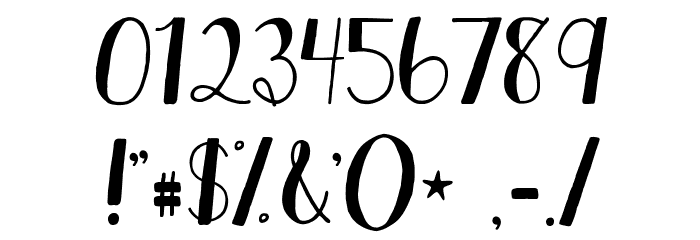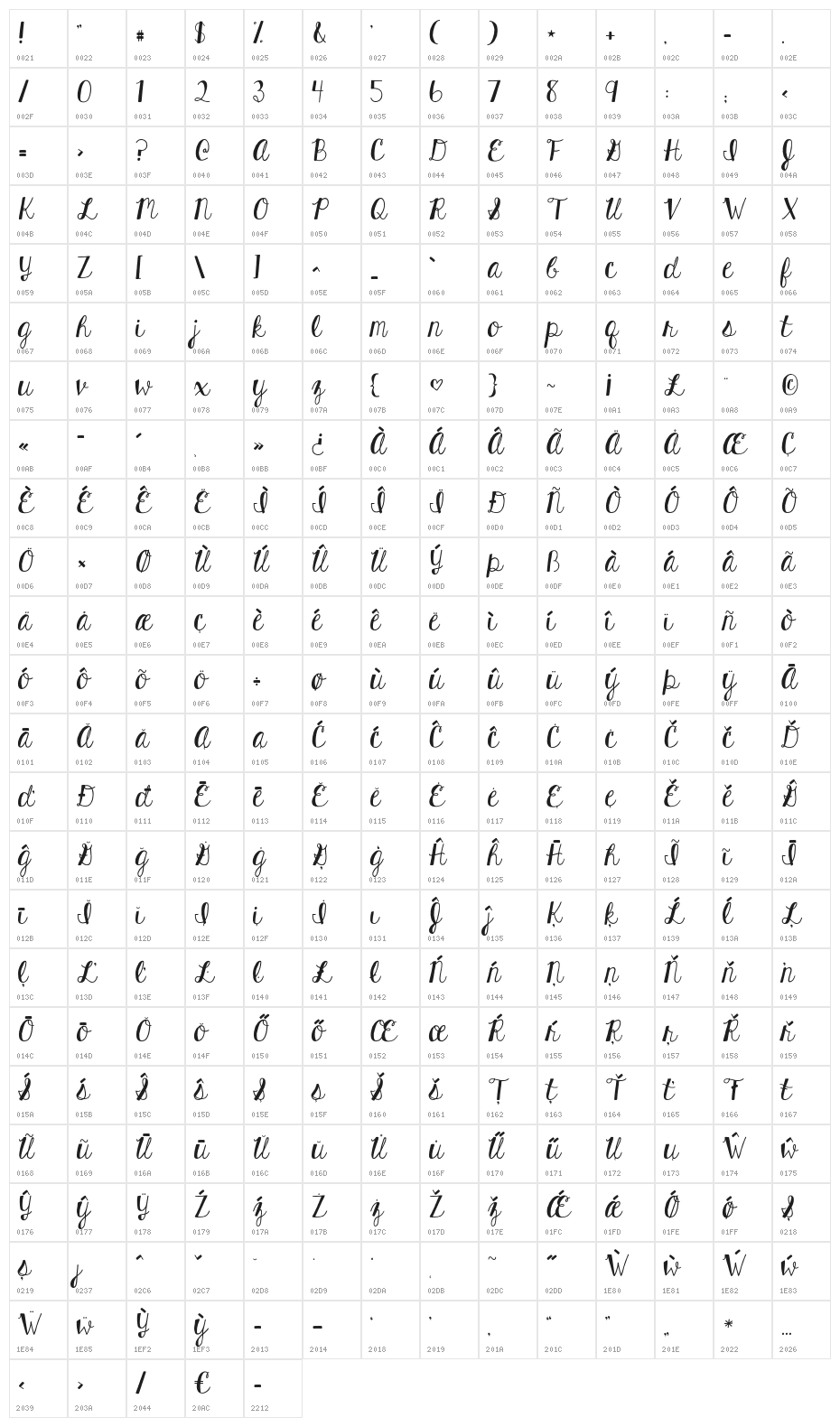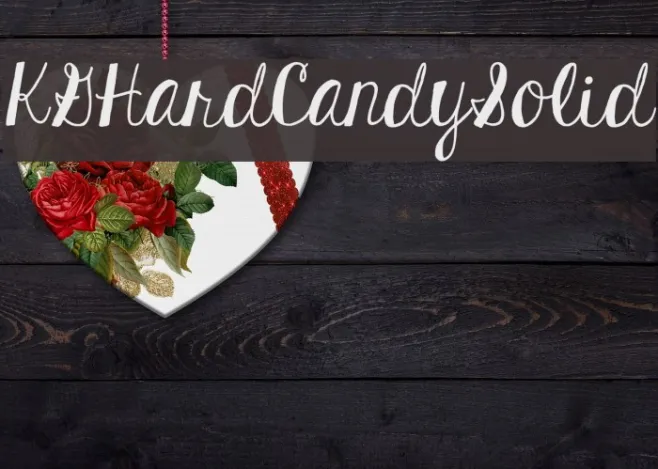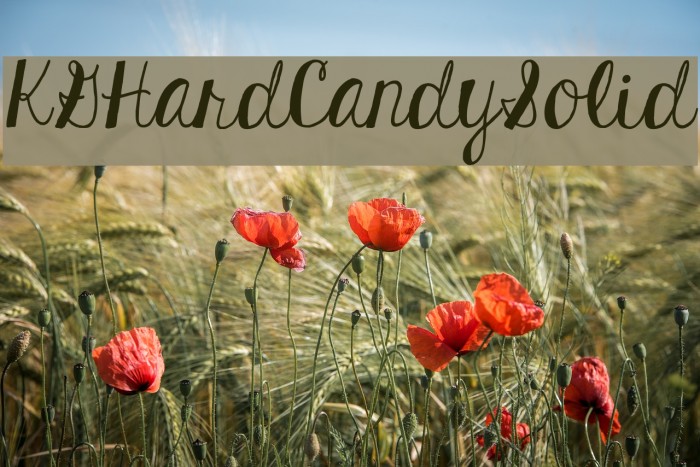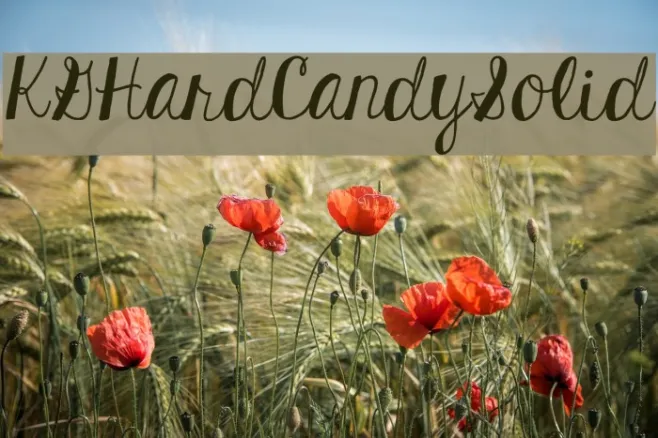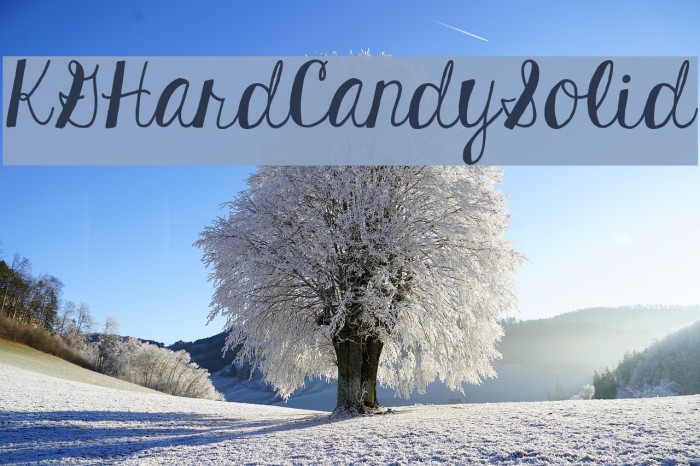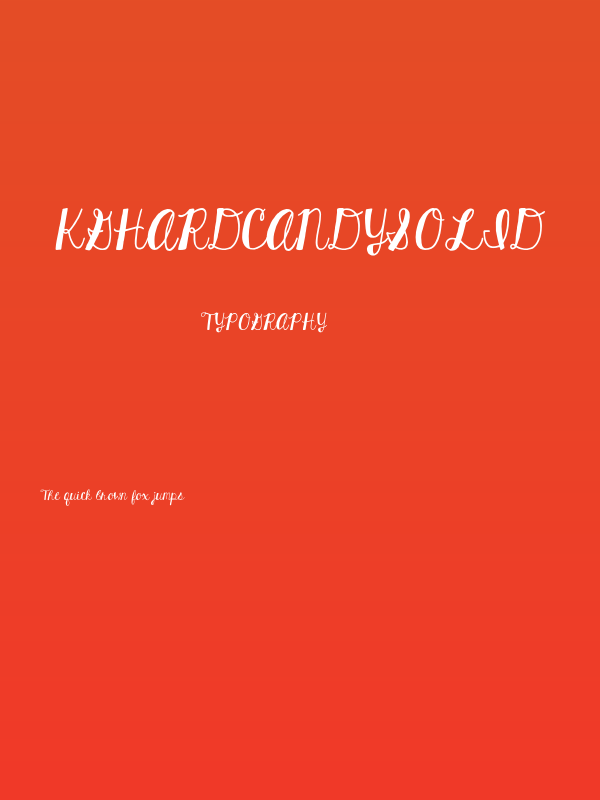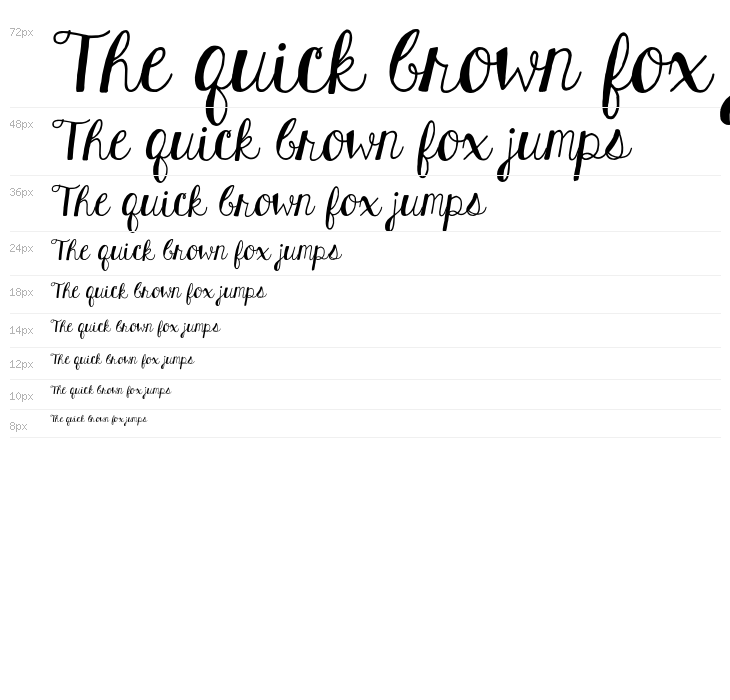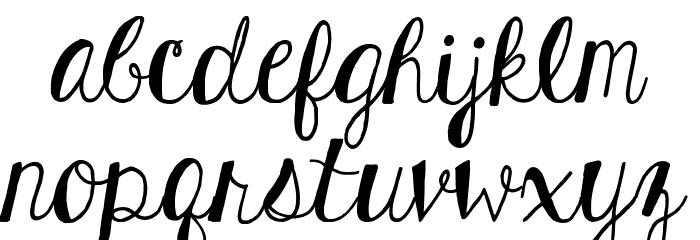
KGHardCandySolid Font
KGHardCandySolid Description
This font features a playful and whimsical script style with a handwritten appearance. The letters are connected with smooth, flowing strokes, giving it a casual yet elegant look. The uppercase letters have a distinct flair, with some featuring loops and curls that add character. The lowercase letters maintain a consistent style, with rounded edges and a slight slant, enhancing the handwritten feel. The numbers and special characters are designed to match the overall aesthetic, making it versatile for various design needs.